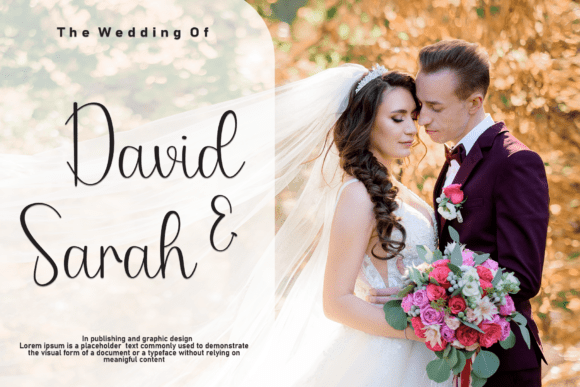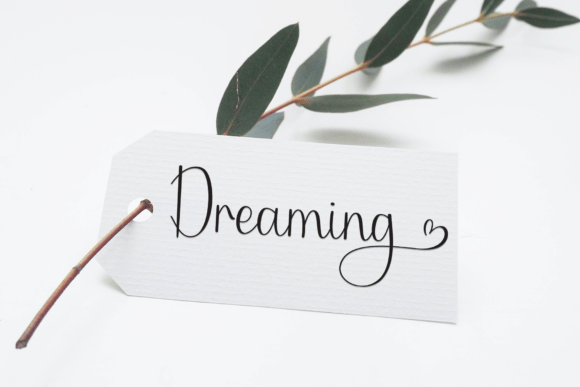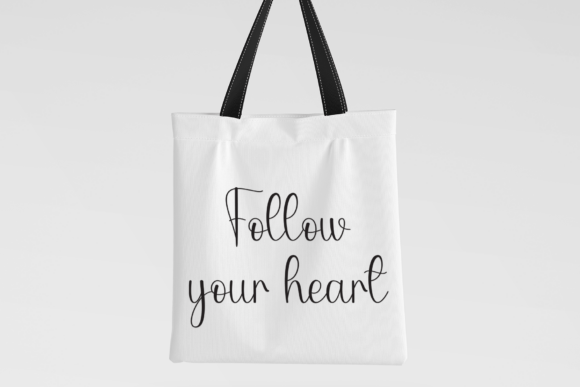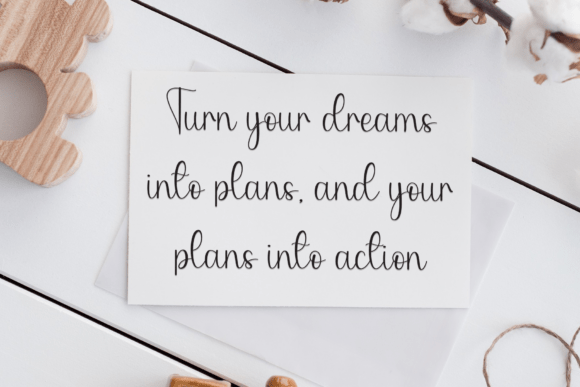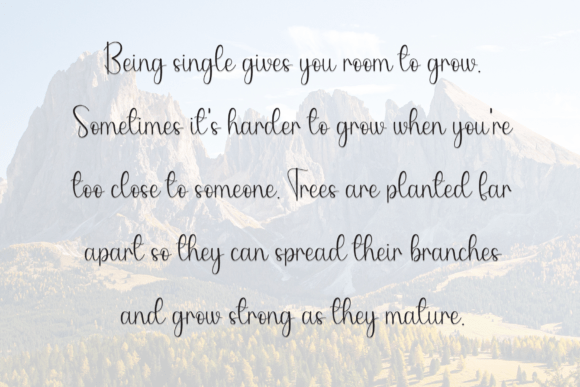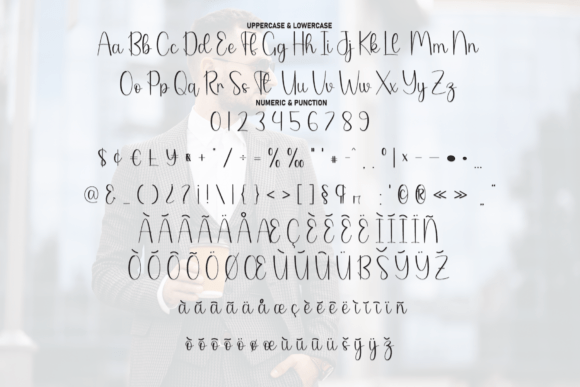
Introducing the Classy Font: Elevate Your Designs with Whimsy and Charm
Are you tired of using the same old fonts in your designs? Do you want to add a touch of personality and whimsy to your projects? Look no further than the Classy Font, a handmade display font that is sure to capture your imagination. With its unique allure and engaging charm, this delightful typeface is perfect for designers and crafters looking to add a sprinkle of fun to their work.
A Universe of Dynamic Colors and Beauty
The Classy Font is more than just a font – it’s an experience. Imagine diving into a universe of dynamic colors and beauty, where every letter and character is a work of art. This visually appealing font is overflowing with unique charm, making it perfect for a variety of design projects, from nuptial invites to greeting cards and holiday-themed graphics.
Radiating Inviting Warmth and Whimsy
One of the standout features of the Classy Font is its inviting warmth. This font radiates a sense of friendliness and approachability, making it perfect for designs that need to connect with the viewer on a personal level. Whether you’re creating wedding invitations, birthday cards, or holiday-themed graphics, this font is sure to add a touch of whimsy and fun to your work.
Seamlessly Adding a Sprinkle of Fun
The Classy Font is designed to add a sprinkle of fun to your designs. With its relaxed dash of mischief, this font is perfect for designers and crafters who want to create projects that are playful and engaging. Imagine using this font to create a set of greeting cards that will make your friends and family smile, or to design a holiday-themed graphic that will add a touch of humor to your social media feed.
Yield to the Irresistible Charm
The Classy Font is a one-of-a-kind typeface that is sure to draw out your quirky side and spark your artistic creativity. With its captivating magnetism, this font will transform your projects into enchanting tales of jubilation and cutting-edge design. Whether you’re a designer, crafter, or DIY enthusiast, this font is sure to inspire you to create something truly special.
Crafted to Spark Your Creativity
The Classy Font is crafted to spark your creativity and inspire you to create something truly unique. With its unique allure and engaging charm, this font is perfect for designers and crafters who want to push the boundaries of their creativity. Imagine using this font to create a stunning wedding invitation, a playful birthday card, or a holiday-themed graphic that will leave a lasting impression on your audience.
Enrich Your Design Voyage
If you’re looking for a font that will enrich your design voyage and take your projects to the next level, look no further than the Classy Font. This magnificent font is sure to transform your designs into works of art that will captivate and inspire your audience. With its dynamic colors, unique charm, and inviting warmth, this font is the perfect addition to your design toolkit.
The Classy Font is perfect for designers and crafters who want to add a touch of personality and whimsy to their projects. Whether you’re creating wedding invitations, greeting cards, or holiday-themed graphics, this font is sure to inspire you to create something truly special. With its easy-to-use design and versatile style, this font is perfect for a variety of design projects.
Are you ready to transform your designs and take your creativity to the next level? Look no further than the Classy Font. With its captivating magnetism and unique allure, this font is sure to inspire you to create something truly special. So why wait? Dive into the world of delightful creativity and enrich your design voyage with this magnificent font!
In conclusion, the Classy Font is a must-have for designers and crafters who want to add a touch of personality and whimsy to their projects. With its unique charm, inviting warmth, and dynamic colors, this font is perfect for a variety of design projects. So why wait? Get ready to transform your designs and take your creativity to the next level with the Classy Font!